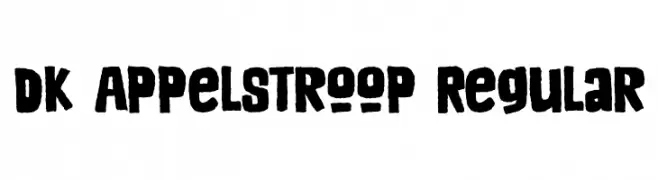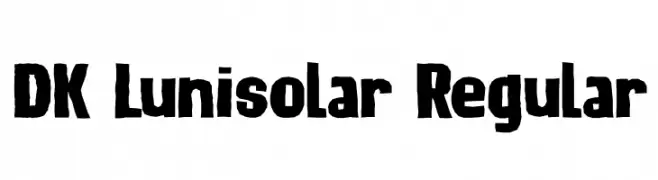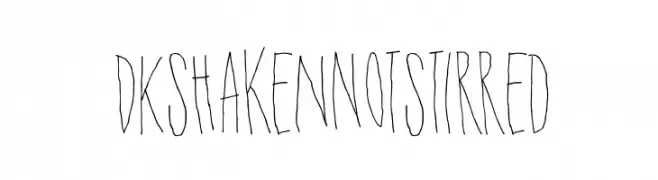
( Fonts by Hanoded )
A bold, rugged font with a hand-crafted, rustic appearance.
( Fonts by Hanoded )
A bold, playful font with rounded edges and a whimsical style.
( Fonts by Hanoded )
A quirky, handwritten font with tall, narrow letterforms and a playful style.
( Fonts by Hanoded )
A whimsical, hand-drawn font with a vintage charm and artistic flair.
( Fonts by Hanoded )
A playful, bold font with a whimsical, hand-drawn style and monkey motifs.